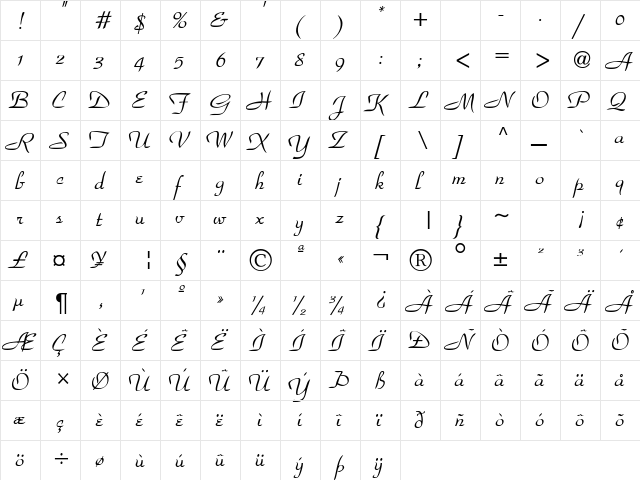
ParkaDB Normal
Design Context for ParkaDB Typeface
ParkaDB is a composed and adaptable typeface that performs quietly and consistently across a wide range of design contexts.